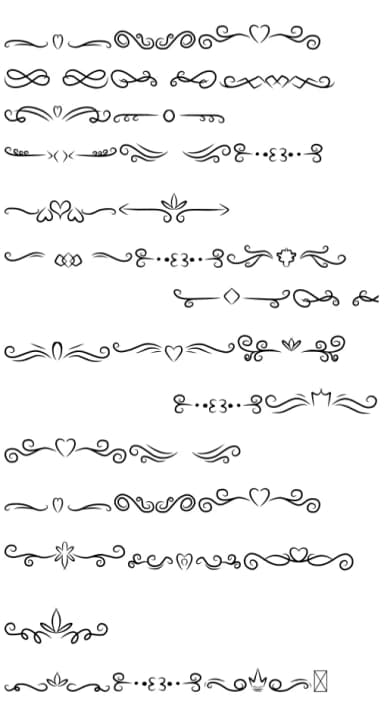
You're designing a wedding invitation suite and need something that looks handcrafted and intentional but doesn't require hours of manual work. Vintage Divider from CraftedType Studio is a dingbat font built entirely around decorative borders and flourishes. The extensive glyph library offers dozens of ornamental marks perfect for spacing out text and creating visual breathing room, making it useful for invitation designs, scrapbook layouts, and planner spreads where you want that handmade quality without actually drawing everything by hand.
The font's retro sensibility works well across many different contexts. Boutique skincare packaging looks more polished with these ornamental touches, as do Etsy product labels and DIY craft signage that need a vintage edge. Pair it with text for t-shirt designs, or let the dividers anchor greeting card layouts by breaking up content naturally. Sticker designs benefit especially from the range of marks you have to choose from for different seasons and design moods.
With such an extensive glyph set, you'll never get stuck searching for the right divider or separator. Use these marks to build visual rhythm, frame text blocks, or add ornamental details without needing additional graphic elements. Find it on Creative Fabrica and see what Vintage Divider can do for your next project.
Vintage Divider Font is a versatile dingbats font that works for both headings and body text. Pair it with a contrasting sans-serif or serif font to add visual interest and a clear distinction between titles and body copy.
Vintage Divider Font